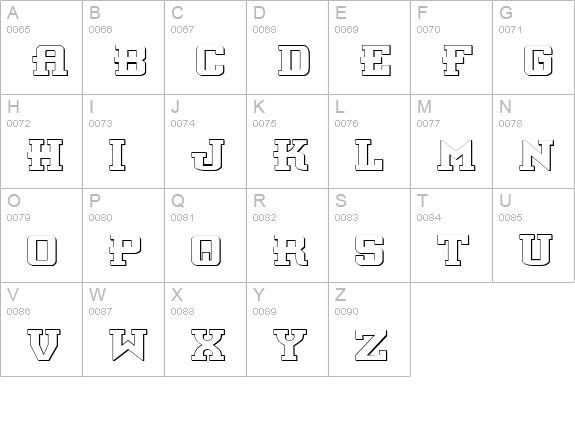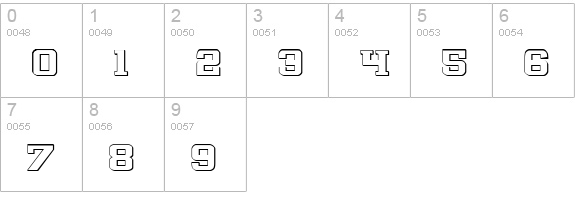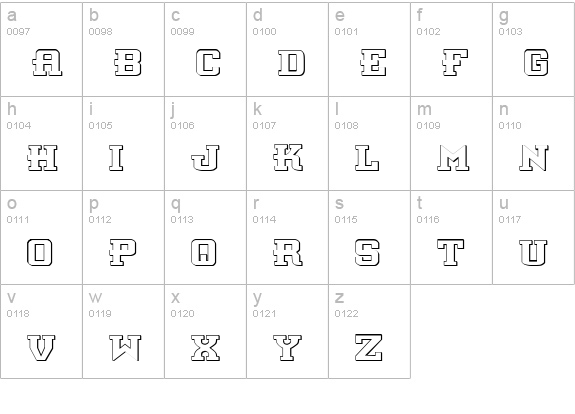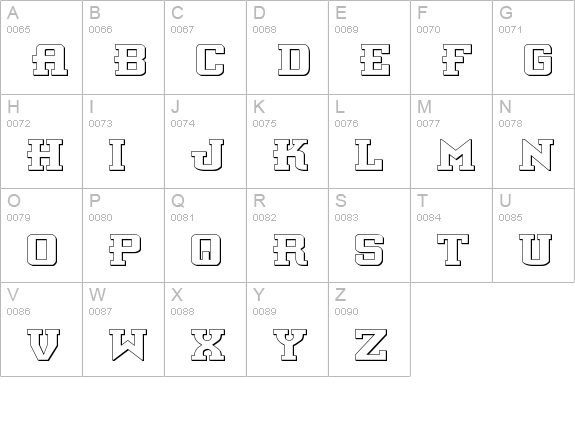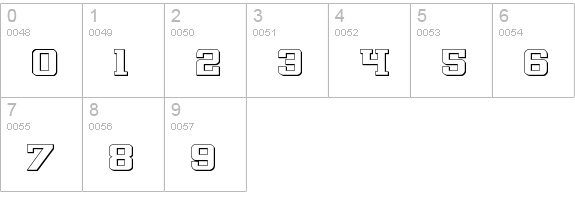
Interceptor Shadow Font Details
Interceptor Shadow is a sleek and modern display font that exudes a sense of power and sophistication. With its sharp angles and bold lines, this font is perfect for making a statement in any design project. The unique shadow effect adds depth and dimension, making your text stand out with a striking visual impact. What's even better is that Interceptor Shadow is available for free download at FontsMarket.com. You can easily access this stylish font and enhance your creations with its edgy aesthetic. Whether you're working on posters, logos, or website designs, Interceptor Shadow will elevate your typography game and leave a lasting impression on your audience. Download it today and unleash the power of this dynamic font in your projects.